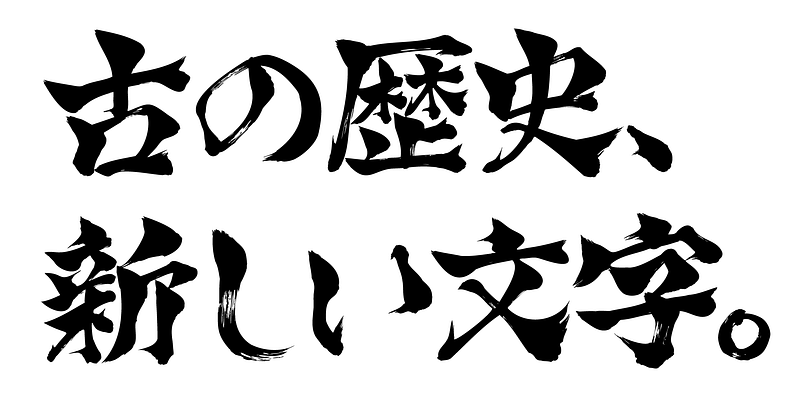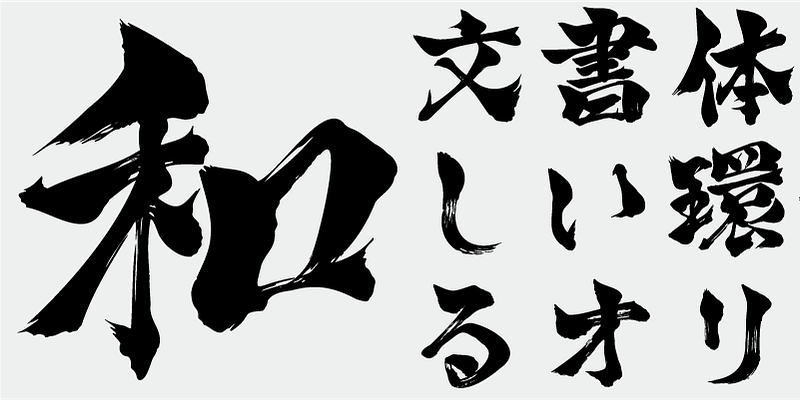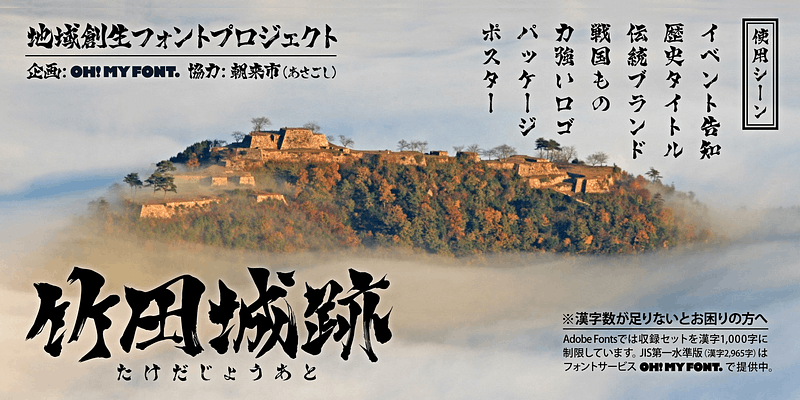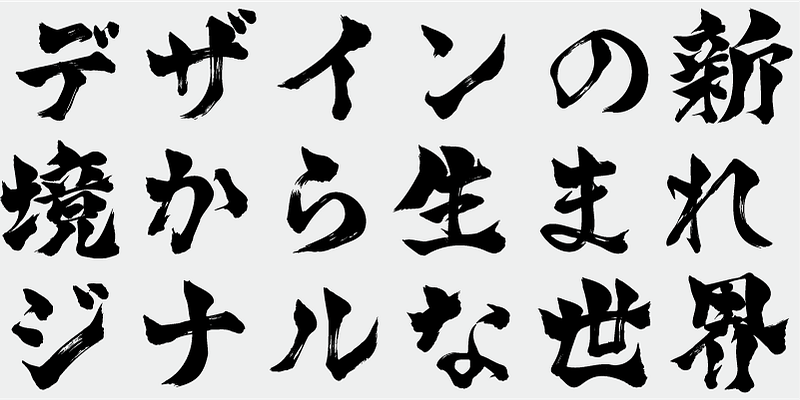
The Takeda Castle Ruins Font is an initiative to create a font inspired by Takeda Castle Ruins, a tourist attraction in Asago City, Hyogo Prefecture, as part of regional revitalization efforts. It was selected as a hometown tax donation return gift by the city. This typeface conveys the strength of brush calligraphy and the momentum of brushwork, while maintaining readability without being too casual, and features square proportions that work well in both vertical and horizontal layouts.
This font includes the top 1,000 kanji characters selected from usage frequency lists compiled by newspaper companies, publishers, and the National Institute for Japanese Language and Linguistics, plus 206 additional characters such as kana, alphanumerics, and carefully selected symbols and punctuation marks.